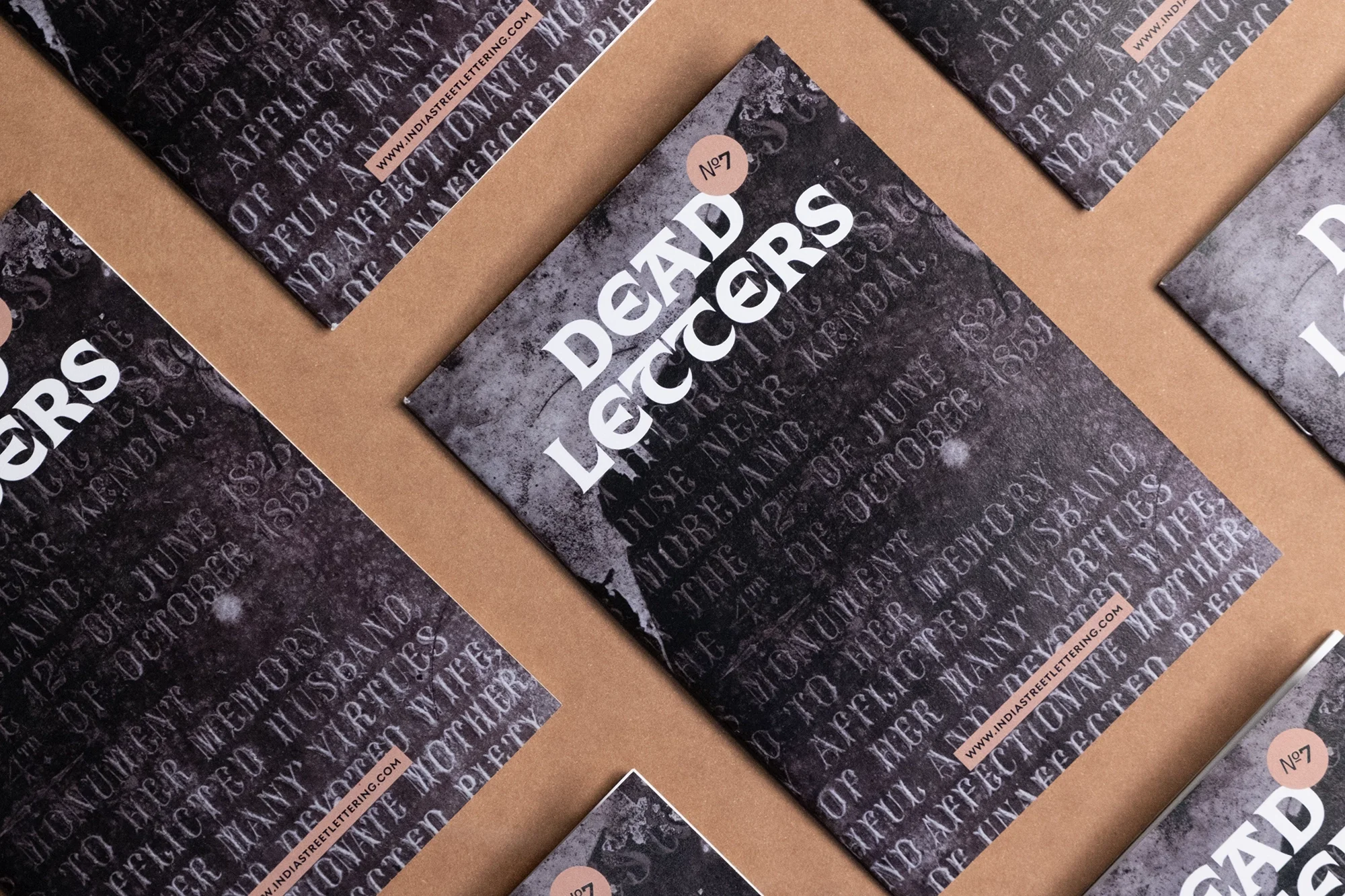
Dead Letters — a new India Street Lettering zine highlighting the unique letterforms on gravestones in historic cemeteries
Old Christian cemeteries around India are an opportunity to see what Latin letterforms looked like in the country historically, beyond the lens of print, letterpress and otherwise.
Dead Letters is a self-published zine that collects a sample of photographs featuring gravestones from the late 18th to the mid-20th century. It is an invitation to explore and study this subject, and in this small publication, one will find lettering in a range of styles: from uncial to blackletter, transitional to Tuscan, all the way to geometric sans. Weathered headstones also reveal the remnants of a specialised craft, lead lettering, as well as archaic typographic conventions, like the use of superior letters in abbreviated names.